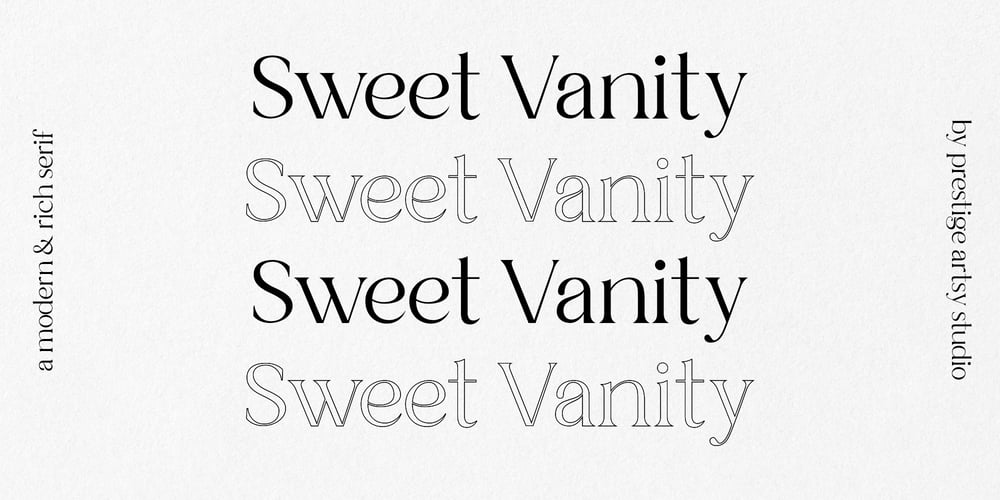
Sweet Vanity
Sweet Vanity font
Sweet Vanity Font Family was designed by Zak M and published by Prestige Artsy Studio. Sweet Vanity contains 2 styles and family package options. Sweet Vanity is a remarkable modern and rich serif that comes with its beautiful outline. It works beautifully for branding projects, headlines, magazines, product packaging, quotes, posters and more. Sweet Vanity can be easily read thanks to its sophisticated and clean curves.WHAT’S INCLUDED:• Sweet Vanity – Regular• Sweet Vanity – OutlineFollow me on Instagram for future updates : www.instagram.com/zak.mansouri/